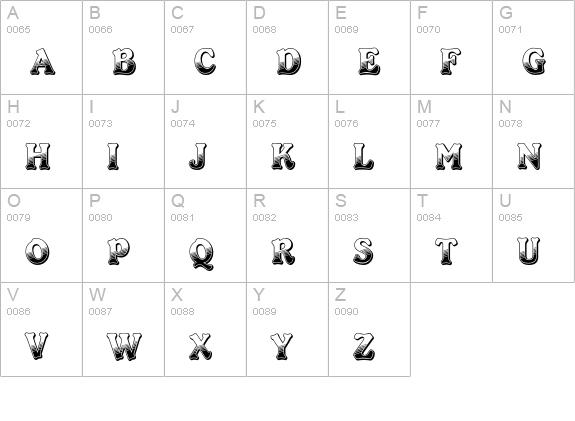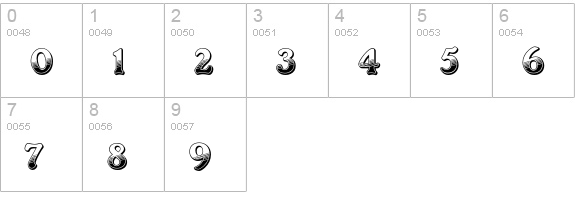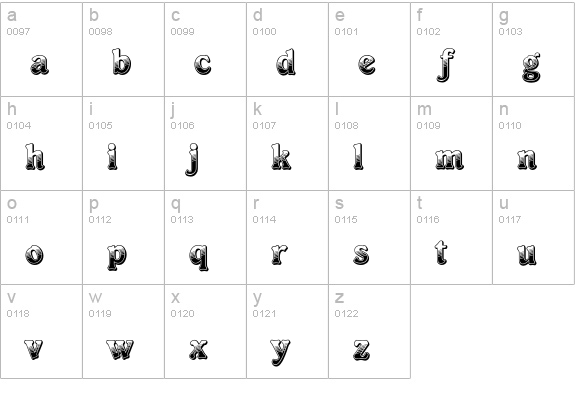
CabaretICG Font Details
CabaretICG is a modern and stylish font that exudes elegance and sophistication. With its graceful curves and delicate strokes, this font is perfect for adding a touch of class to any design project. The unique design of CabaretICG is both eye-catching and versatile, making it suitable for a wide range of applications. This font features a unique combination of bold and thin lines, creating a harmonious balance that is pleasing to the eye. The characters are meticulously crafted with attention to detail, resulting in a font that is both legible and visually appealing. One of the best things about CabaretICG is that it is free. You can easily download this font for free at FontsMarket.com, making it accessible to designers and creatives of all kinds. Whether you are working on a personal project or a professional design, CabaretICG is a fantastic choice that won't break the bank. With its timeless design and free availability, CabaretICG is a font that is sure to enhance any design. Its versatility and elegance make it suitable for a wide range of applications, from branding and advertising to web design and print media. So why wait? Download CabaretICG today and elevate your designs to new heights.